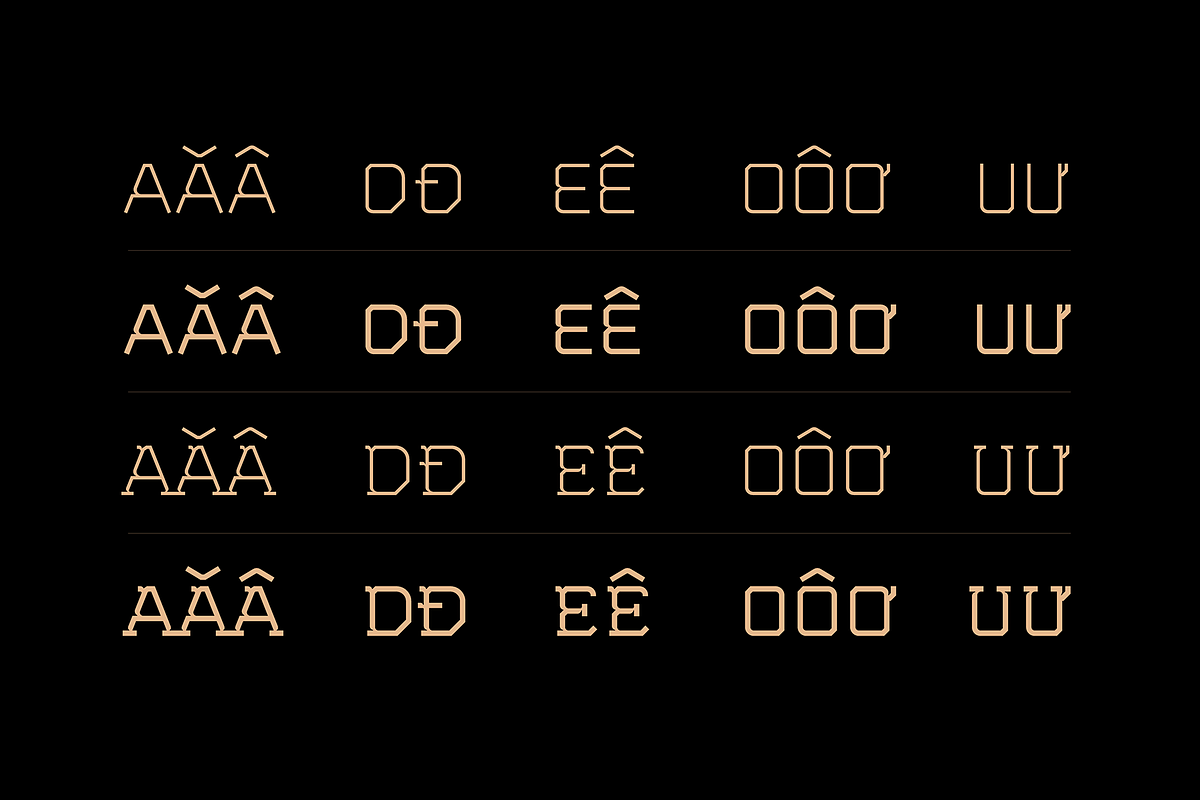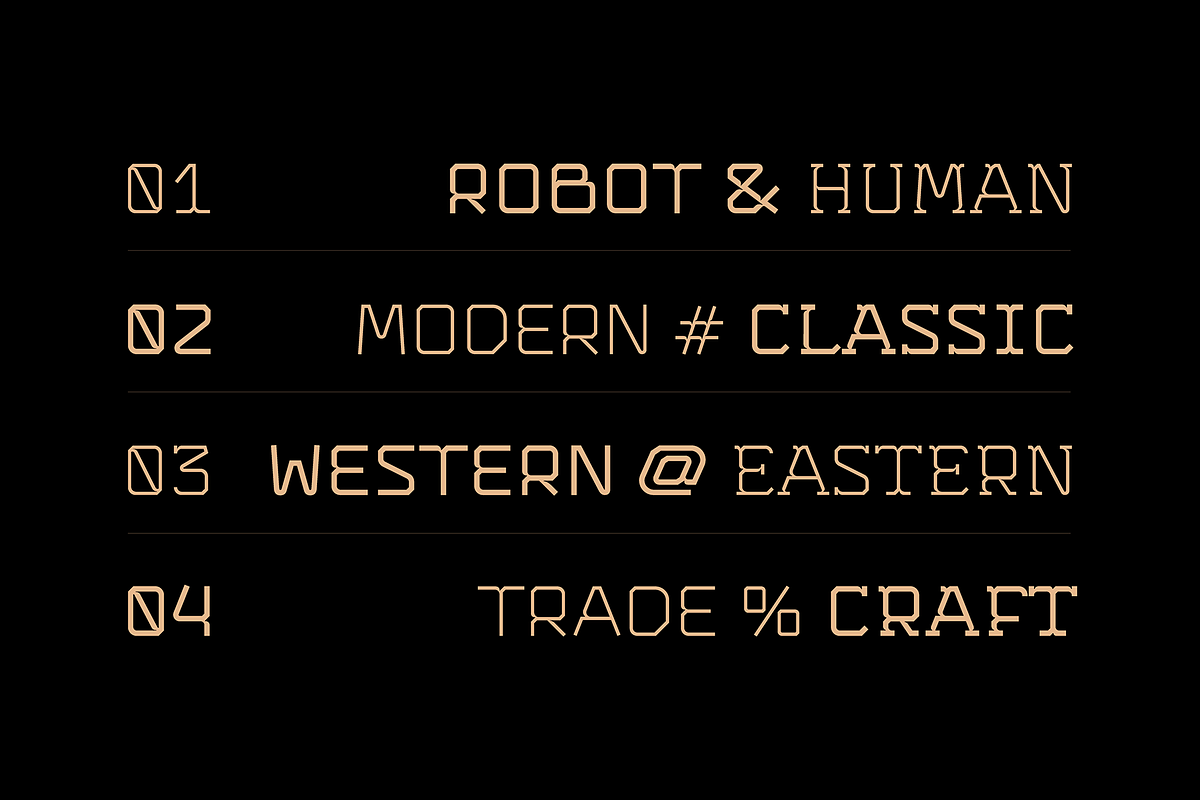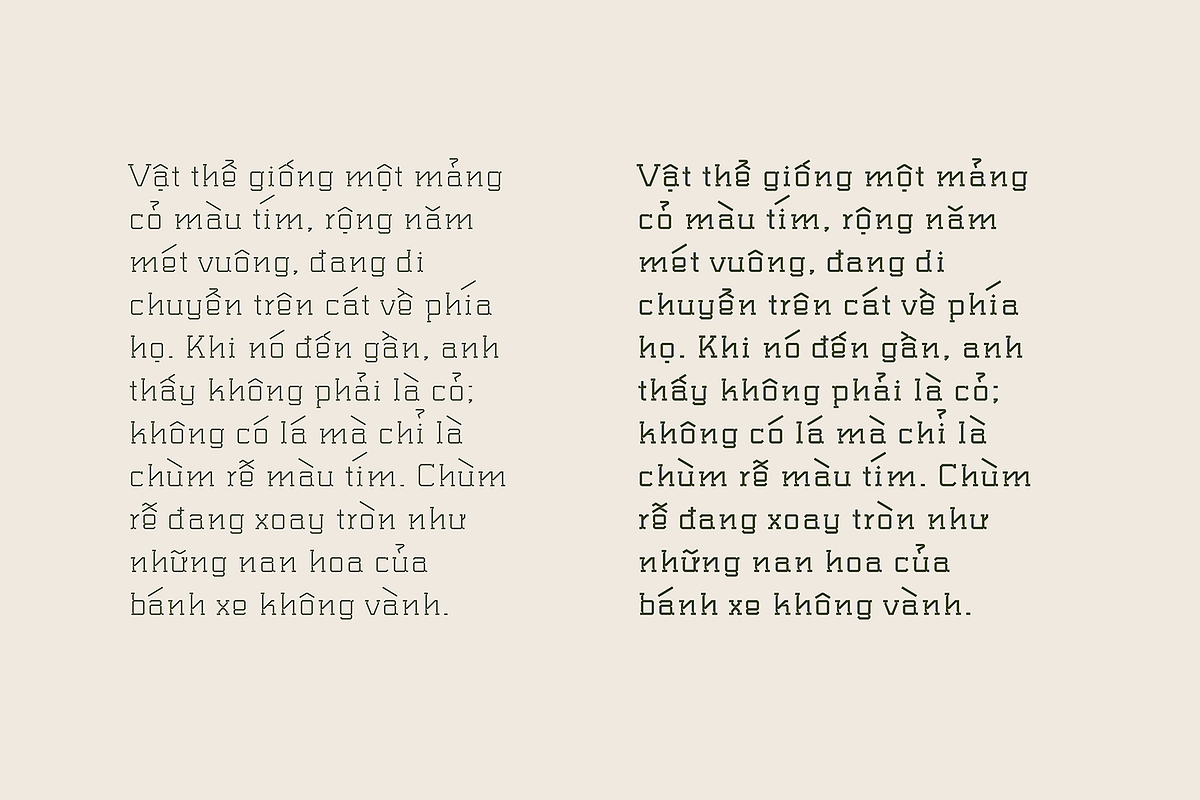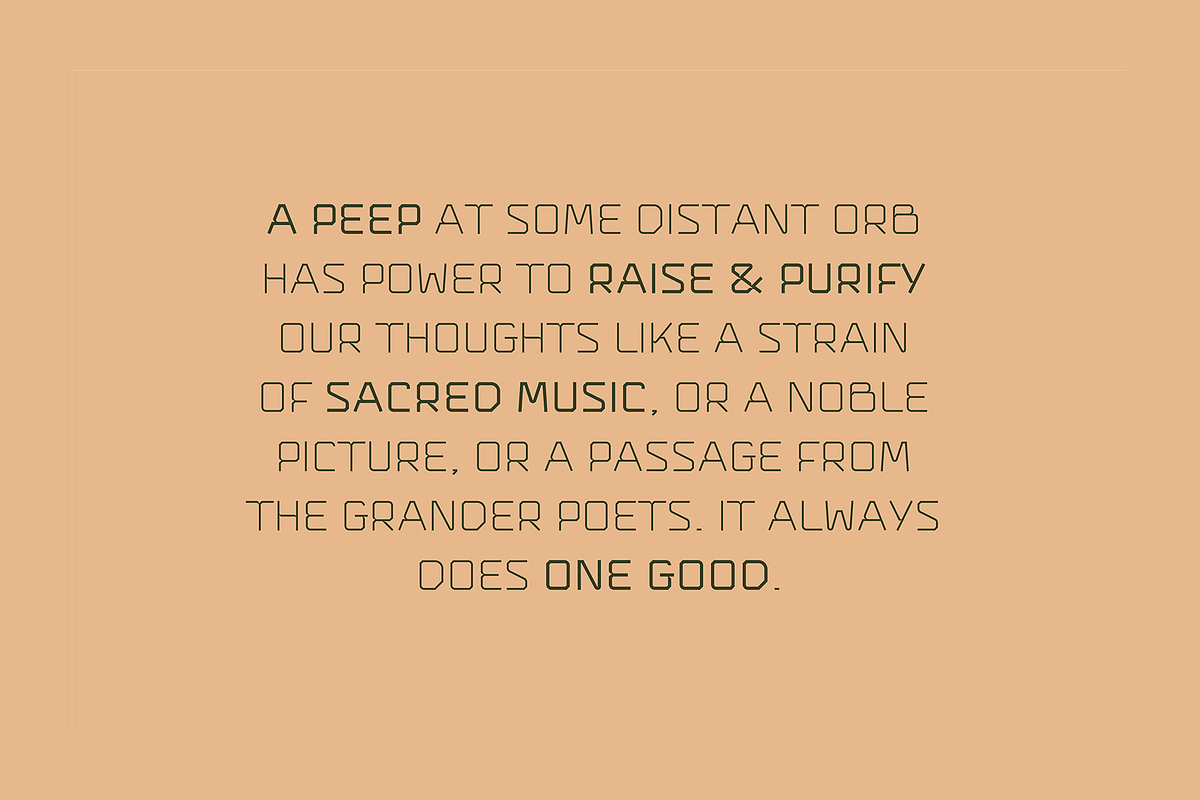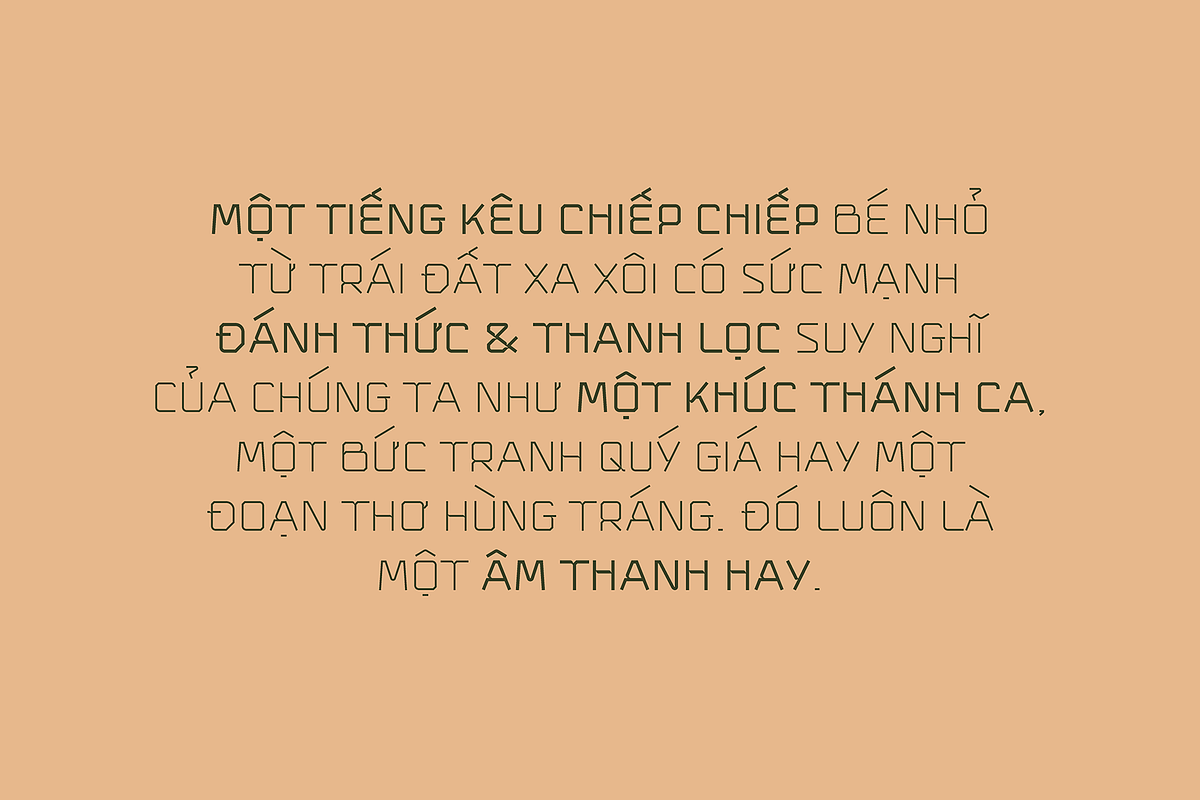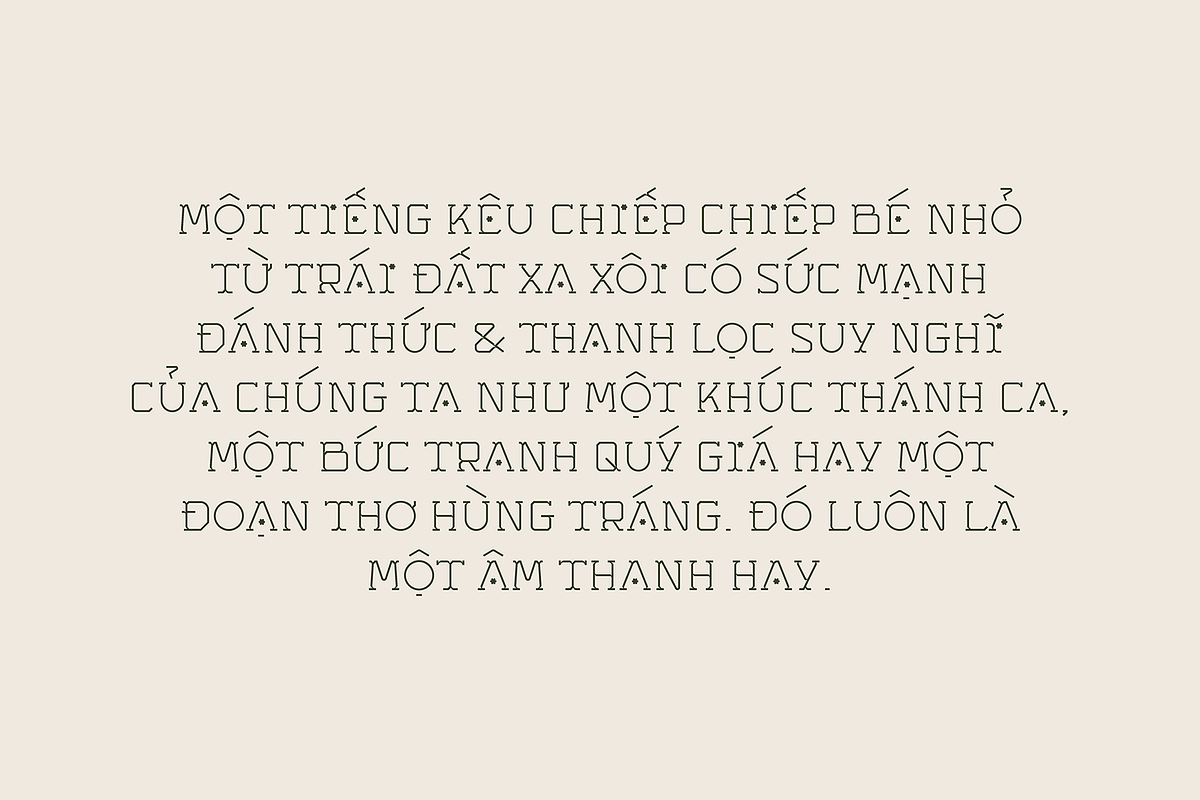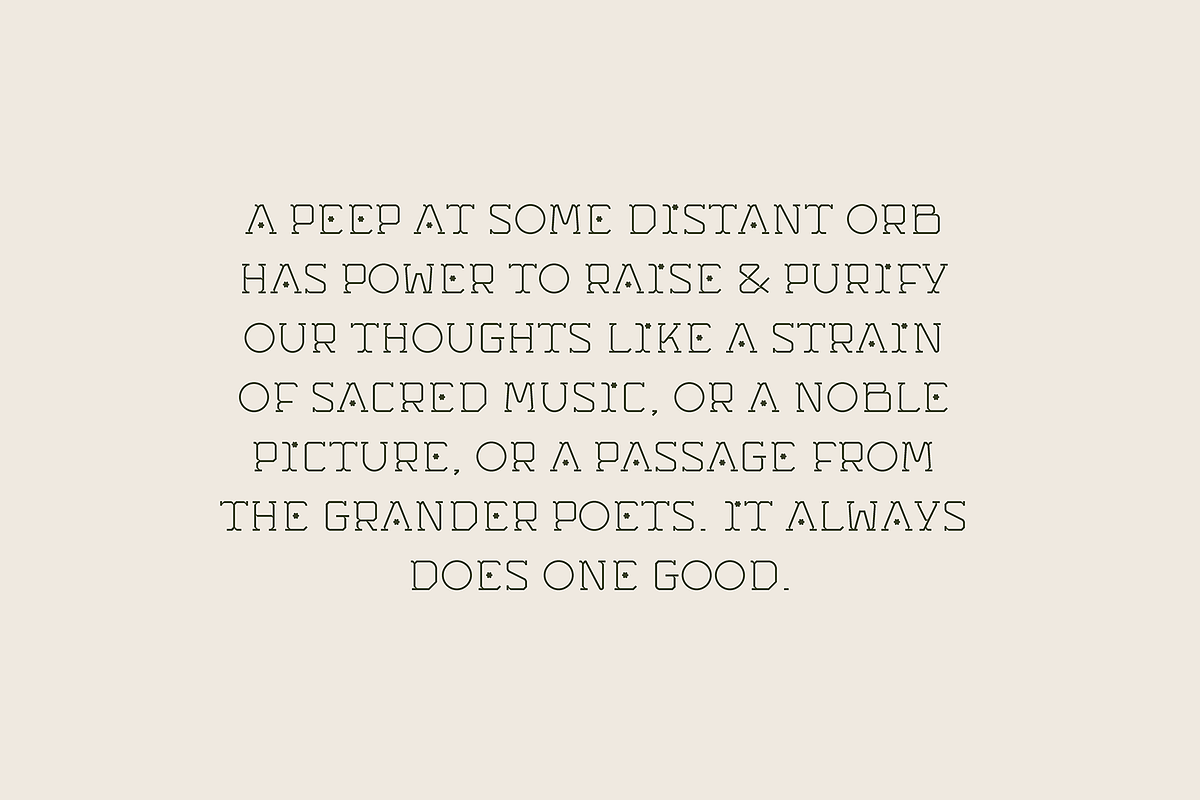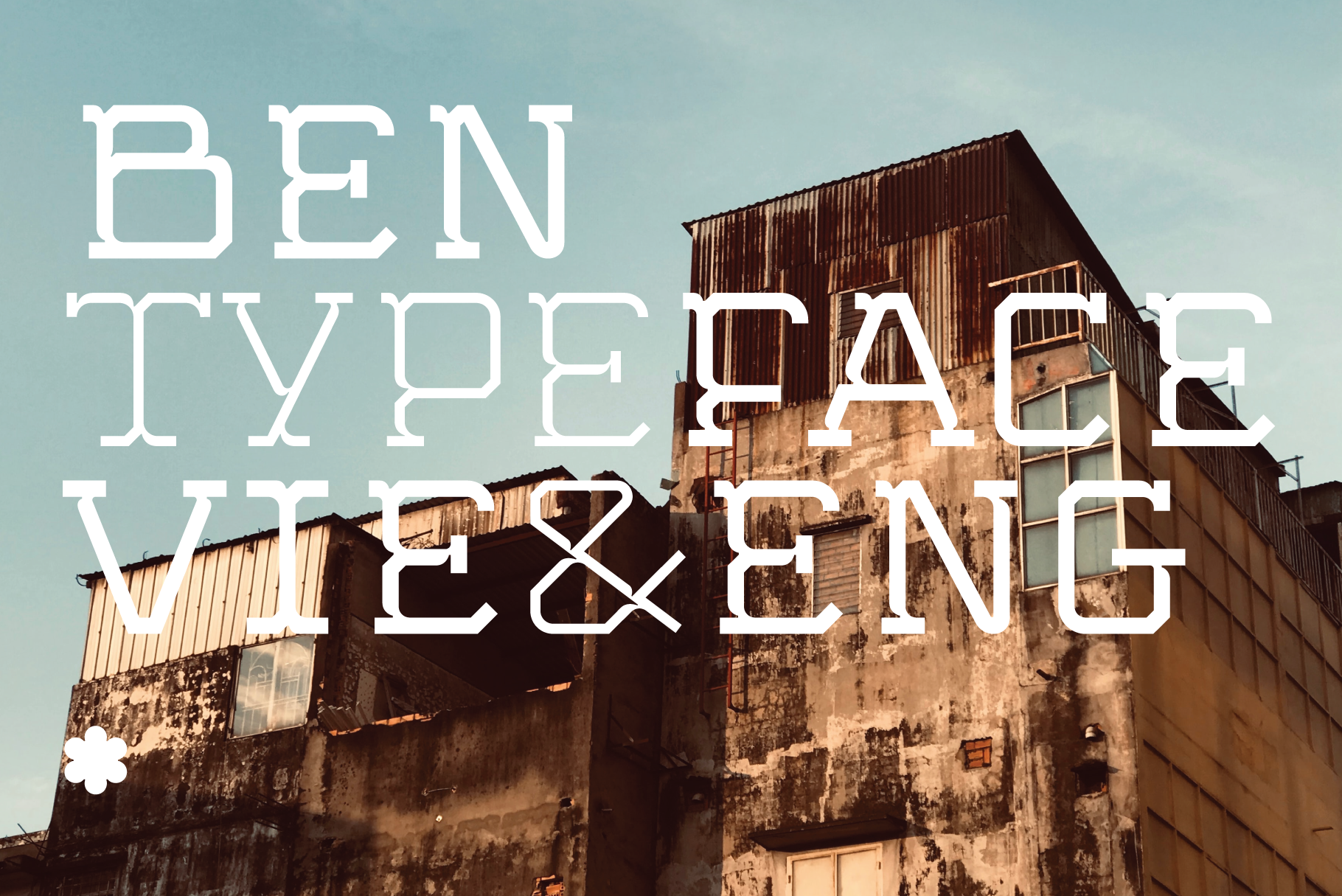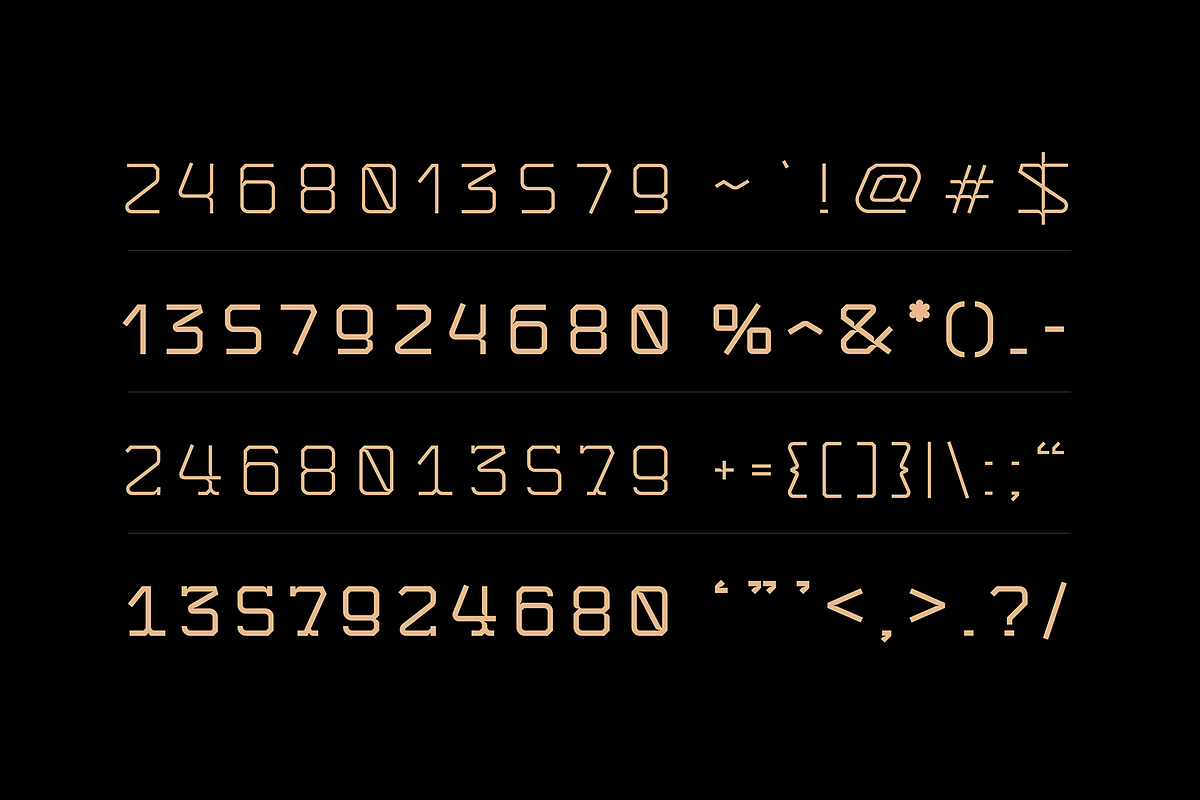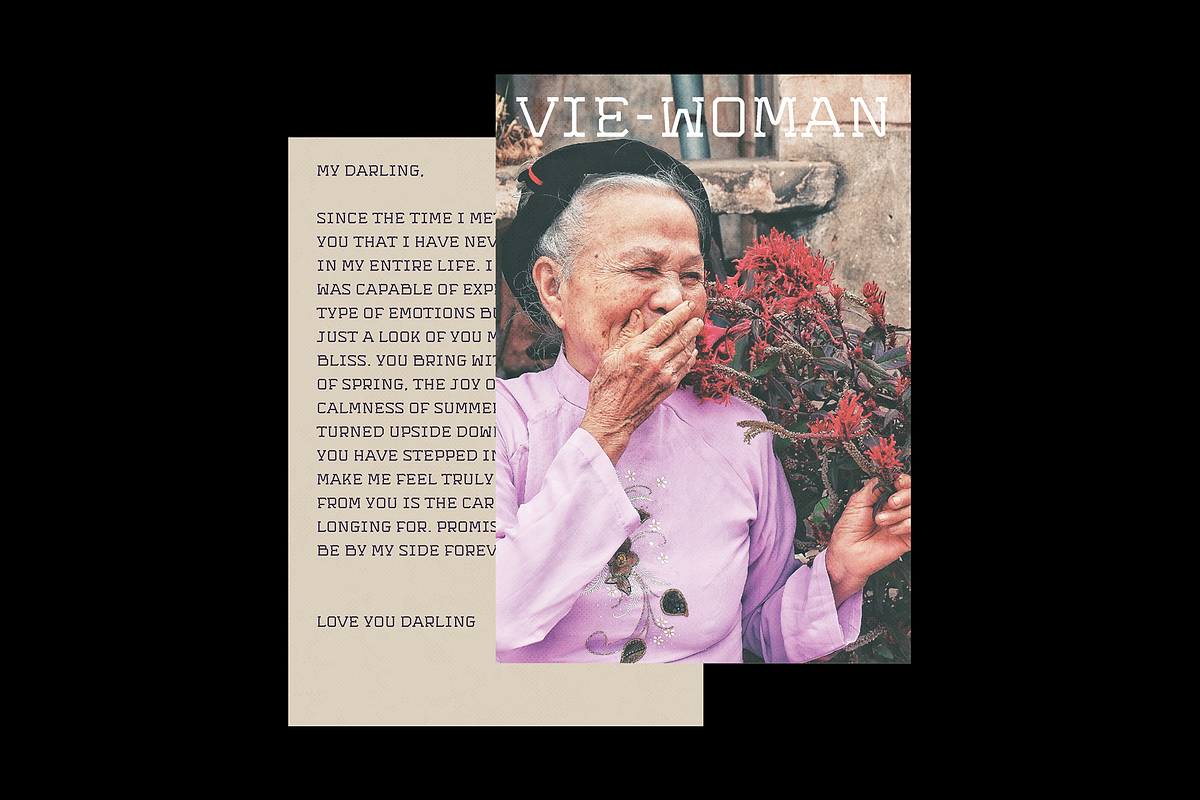
BEN - Typeface
"Ben typeface" is inspired by the "Vietnam window grill" with the letter structure looks like iron bars intertwined and the floral mark is used as emphasis symbol.
The typeface includes 3 different types: Sans-serif; Slab-serif and Display, which help to enrich the flexibility in usage and application in various publications.